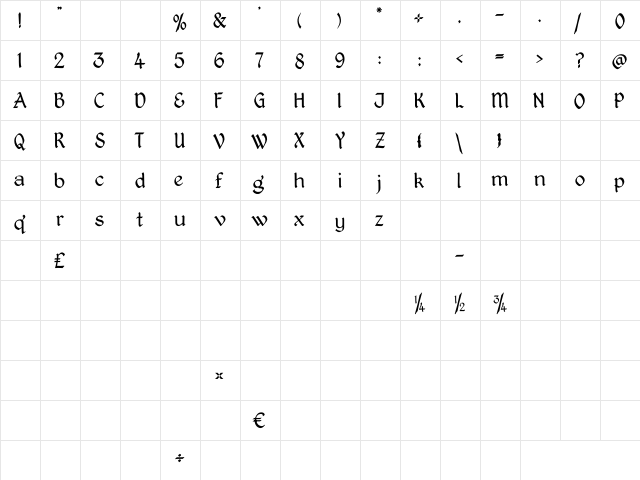
Kingthings Petrock Light Regular Font Preview
Kingthings Petrock Light Regular
Kingthings Petrock Light Regular Font Details
| Designer | High-Logic - Erwin Denissen 1999 |
Design Context for Kingthings Petrock Light Typeface
Kingthings Petrock Light is a composed and adaptable typeface that performs quietly and consistently across a wide range of design contexts. The delicate stroke weight brings airiness and refinement to layouts.